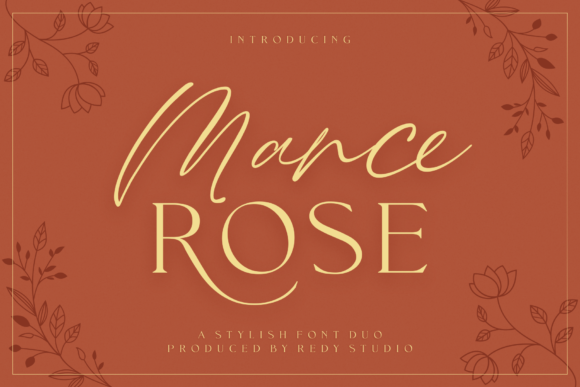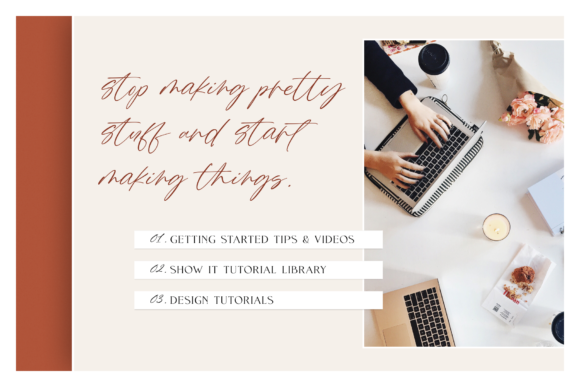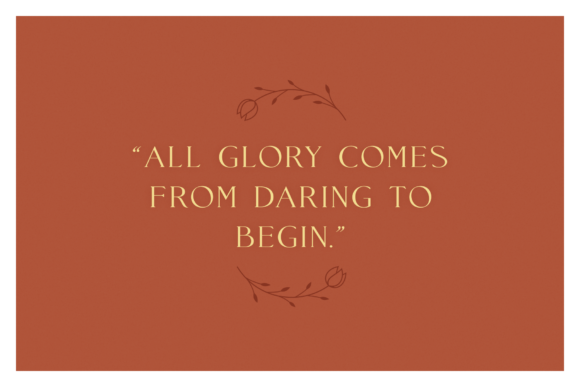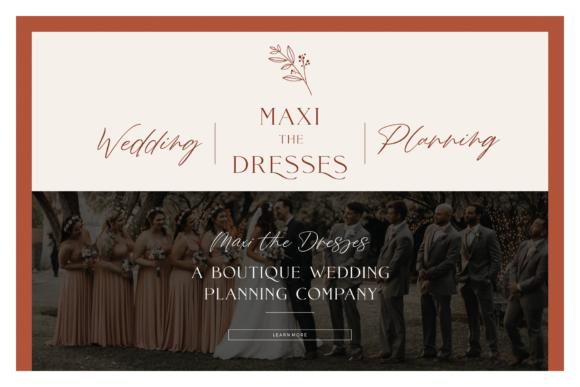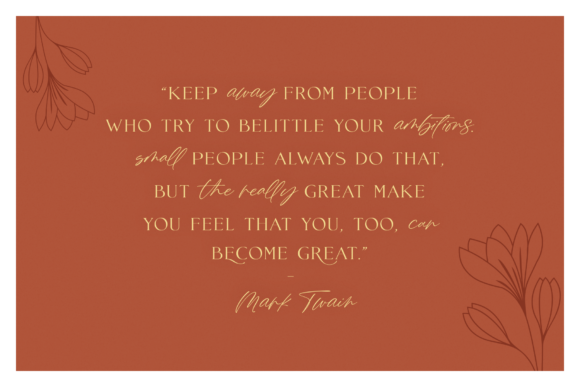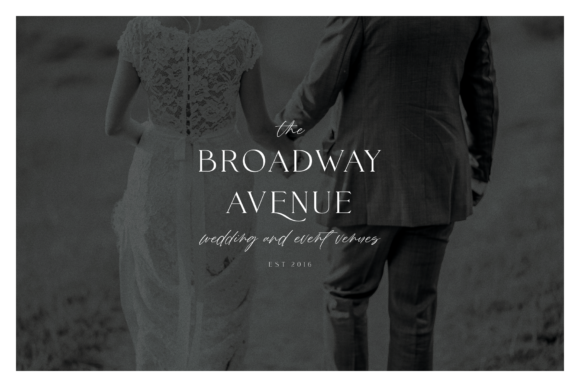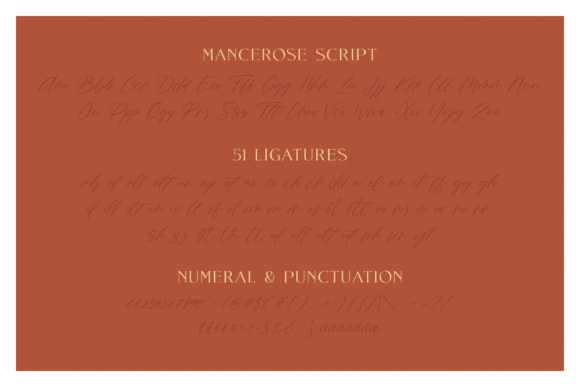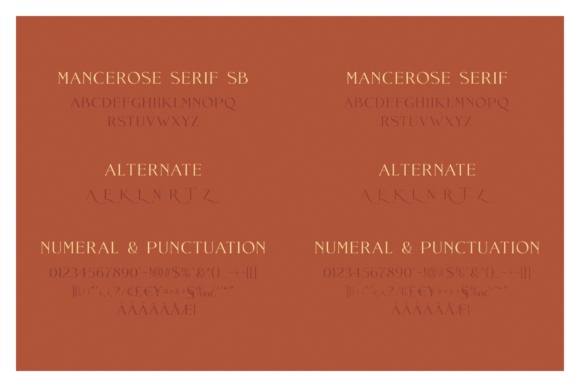
Mance Rose Duo Font
About Mance Rose Duo Font
Mance Rose is an incredibly light and beautiful handwritten font with beautiful swashes. Get inspired by its bold feel, and turn any design idea into a stand out.